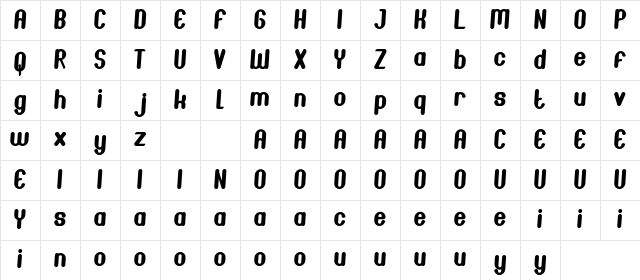
Joscelynn Demo Italic Free Font
Joscelynn Demo Italic
Foundry: Edric Studio
Designer: Renata Insan C
Design Context for Joscelynn Demo
Joscelynn Demo is a composed and adaptable typeface that performs quietly and consistently across a wide range of design contexts. The slanted form adds forward momentum and visual energy.
Pro Tip: Use Joscelynn Demo for emphasis, pull quotes, and subheadings where its slanted energy can add rhythm to the layout.